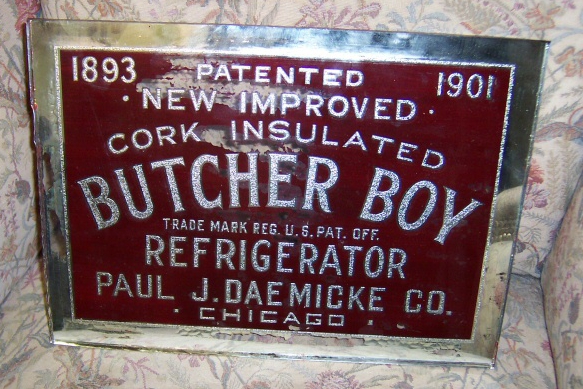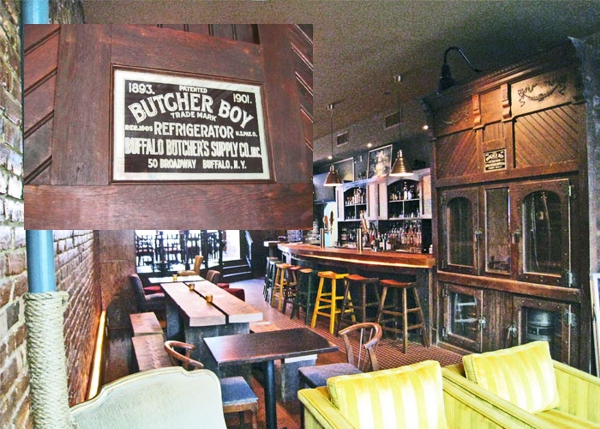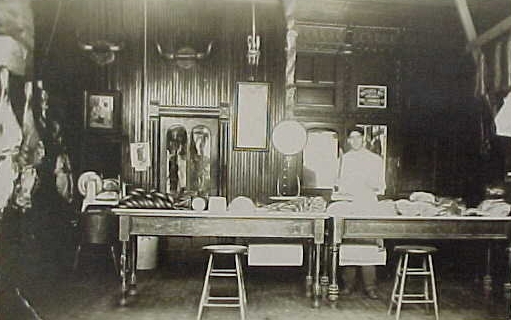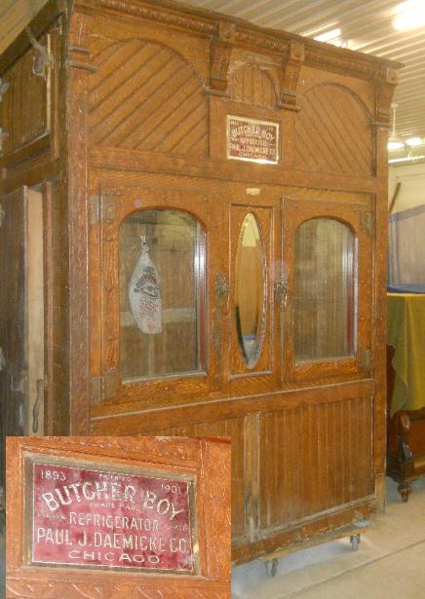
Possible Rawson & Evans piece
I found this sign on Ebay and after consulting the R&E catalog, I had a feeling it was a genuine piece so I threw in the money quickly on it and won. It's in the mail right now and hopefully arrives in one piece to which I'll give a follow up, just wondering what all you guys think - is it a genuine Rawson & Evans piece? A few clues like the treatment on the "J" & "C", the fact that it appears to be glue chipped, the layout and that the company they made it for "Paul J Daemicke" was a manufacturer of refrigerators based in Chicago where they were active all pointed to it being a genuine piece. Even if it's not, it's a cool little sign and will hang nicely on the wall. I used to live in Chicago for a while too so there's that connection too.
Re: Possible Rawson & Evans piece
It appears to be a Western Sandblast Sign and not a Rawson & Evans.
The current wood frame is not original.
So don't feel bad if you want to switch it out with a different frame.
The ebay listing states the following:
"This company manufactured store fixtures including Butcher Boy Refrigerators/meat lockers/coolers/butcher counters/ and more."
Here is a photo of a Butcher Boy Glass Sign...supposedly also a Western Sand Blast piece.
It appears to be a Western Sandblast Sign and not a Rawson & Evans.
The current wood frame is not original.
So don't feel bad if you want to switch it out with a different frame.
The ebay listing states the following:
"This company manufactured store fixtures including Butcher Boy Refrigerators/meat lockers/coolers/butcher counters/ and more."
Here is a photo of a Butcher Boy Glass Sign...supposedly also a Western Sand Blast piece.
Re: Possible Rawson & Evans piece
There is also this...
Re: Possible Rawson & Evans piece
And This...
Re: Possible Rawson & Evans piece
And Finally...
Re: Possible Rawson & Evans piece
Well just one more...
Re: Possible Rawson & Evans piece
Oops...I almost forgot....See if you can latch on to this product catalog.
It might show you where on the cooler your sign was once mounted.
Re: Possible Rawson & Evans piece
What is the treatment on the letters of these signs? The sign that is photographed on the couch does not appear to be glue chipped, as it is quite even and complete especially in the finer letters. It also appears to be too deep to be a acid/mica stipple. Looks more like acid rotting. Or maybe the rotting technique where tempera paint is sponge stippled over the areas to be acid rotted. ie: Done with glass face down in acid bath allowing the convection currents of the eroding glass to create a highly polished and irregular bite into the glass surface. During this rotting process, the tempera paint begins to fall away at different intervals, adding the the irregularity of the acid rotted areas.
Maybe you can post sharper photos of the process used when you receive the piece. Or give a better assessment of the letter treatment.
Re: Possible Rawson & Evans piece
Talked to Super Sleuth Robare about it and he thought it was a Western Sand Blast piece based off of past auctions. Never saw a trademark on this one. Where'd you look Roderick?
Re: Possible Rawson & Evans piece
On the front at the bottom hand written it said Rawson & Evan so freacking small. Larry White has it now. Maybe he can post a photo of it.